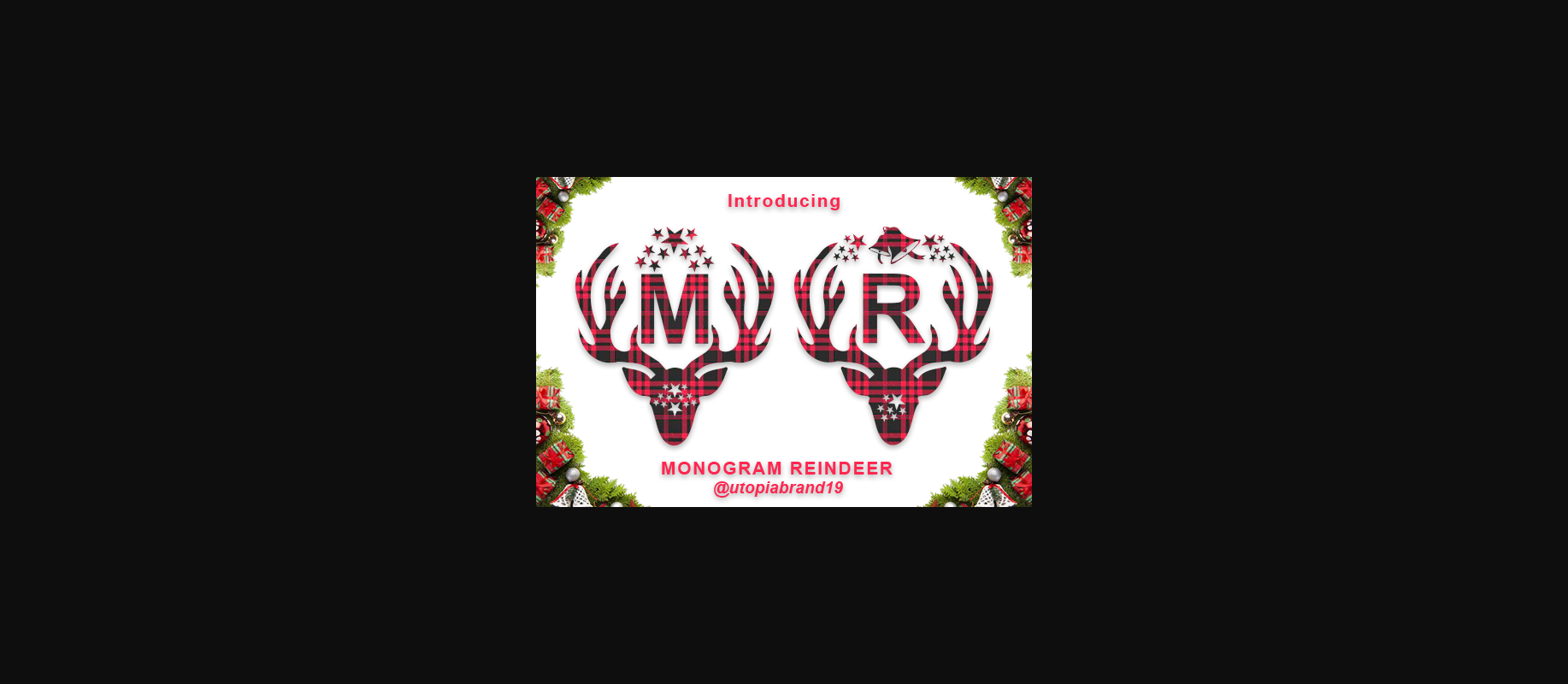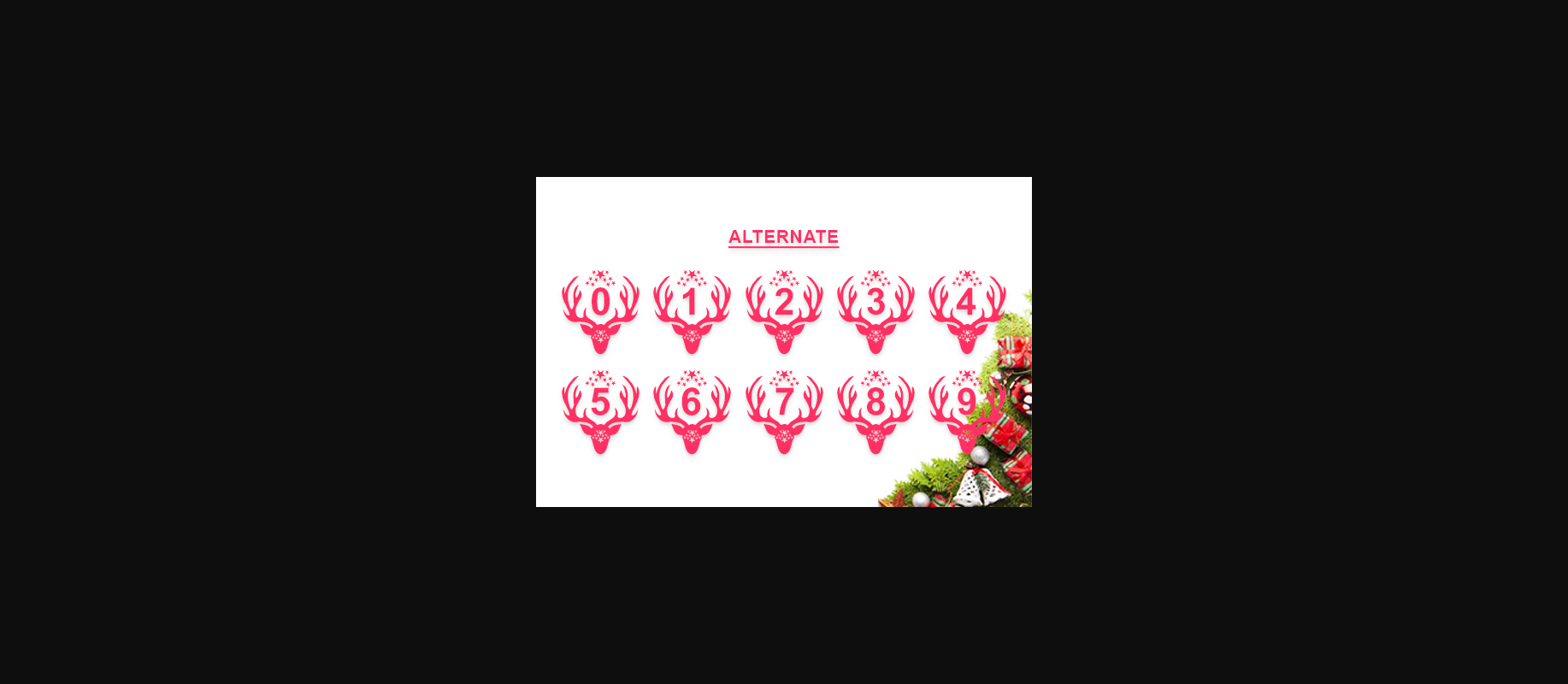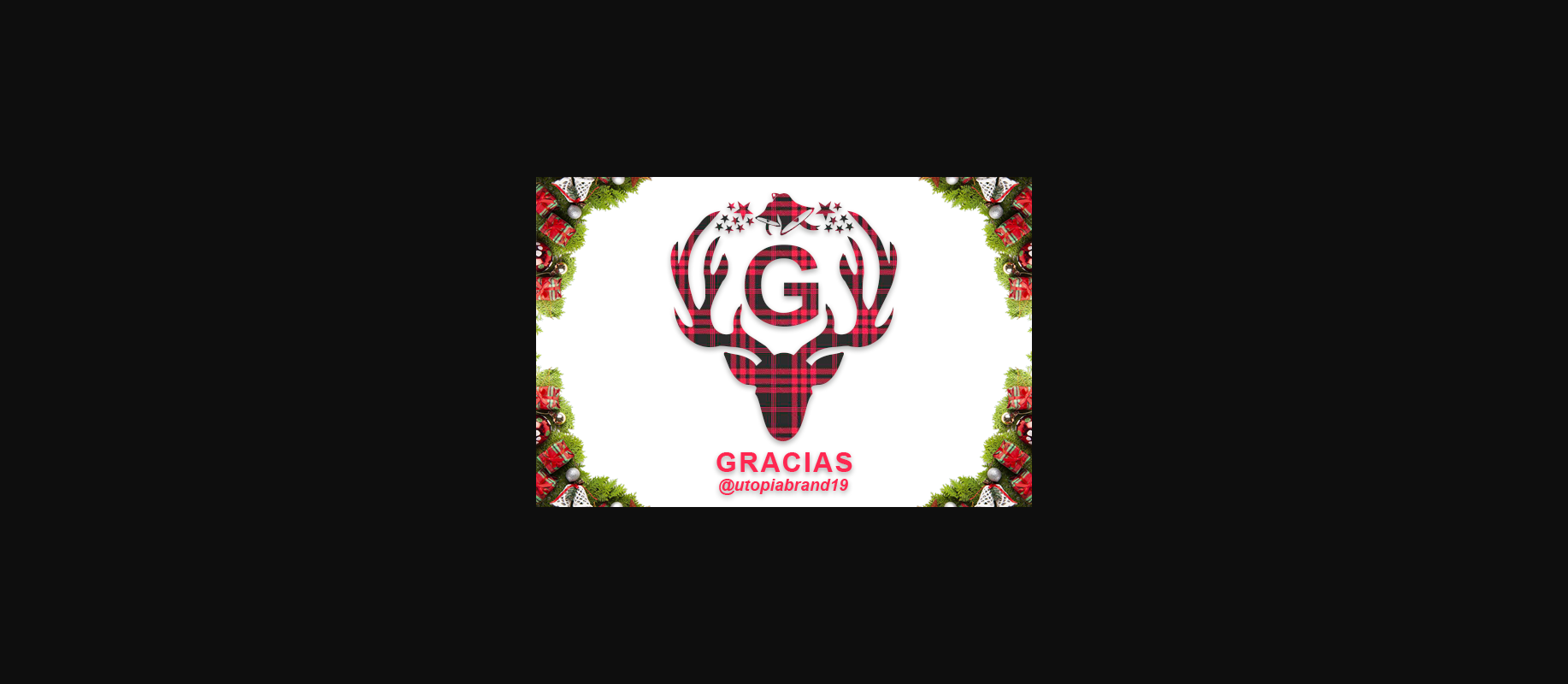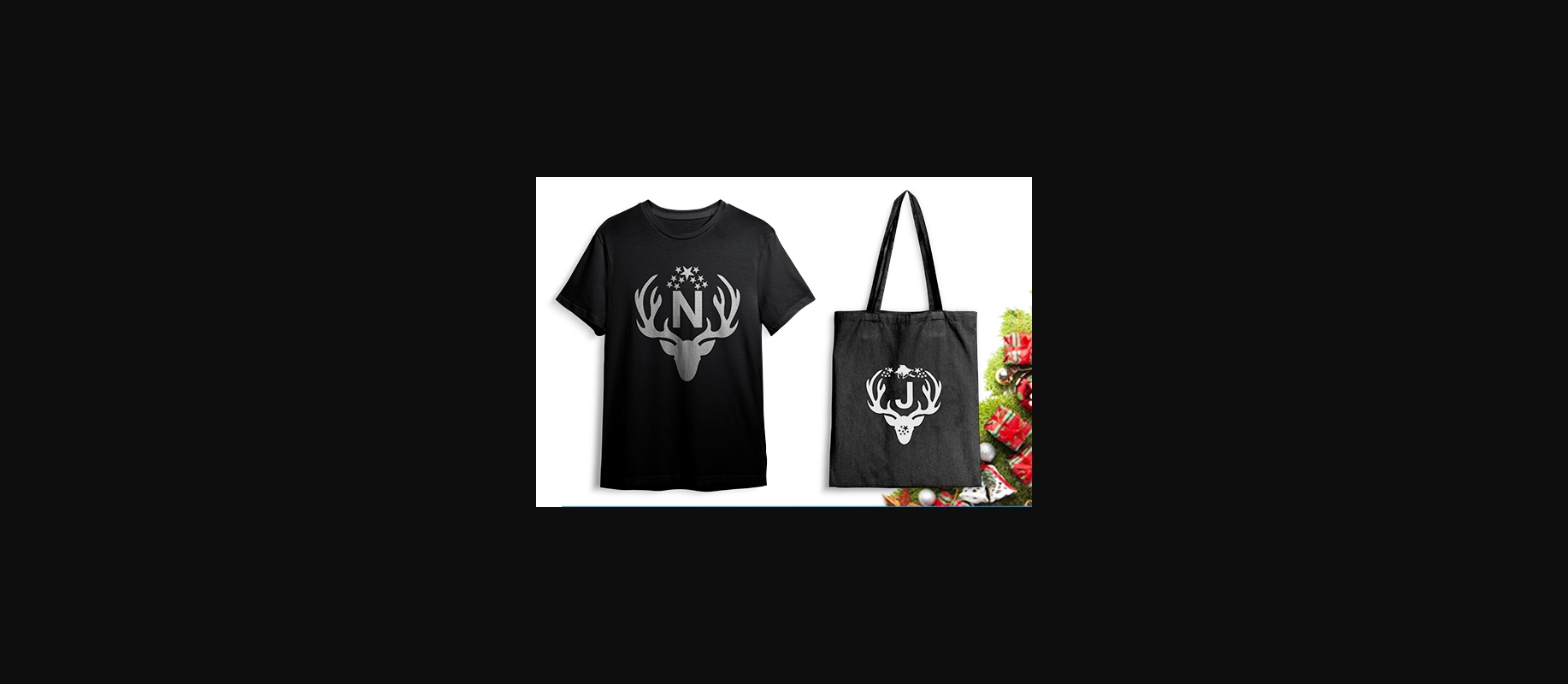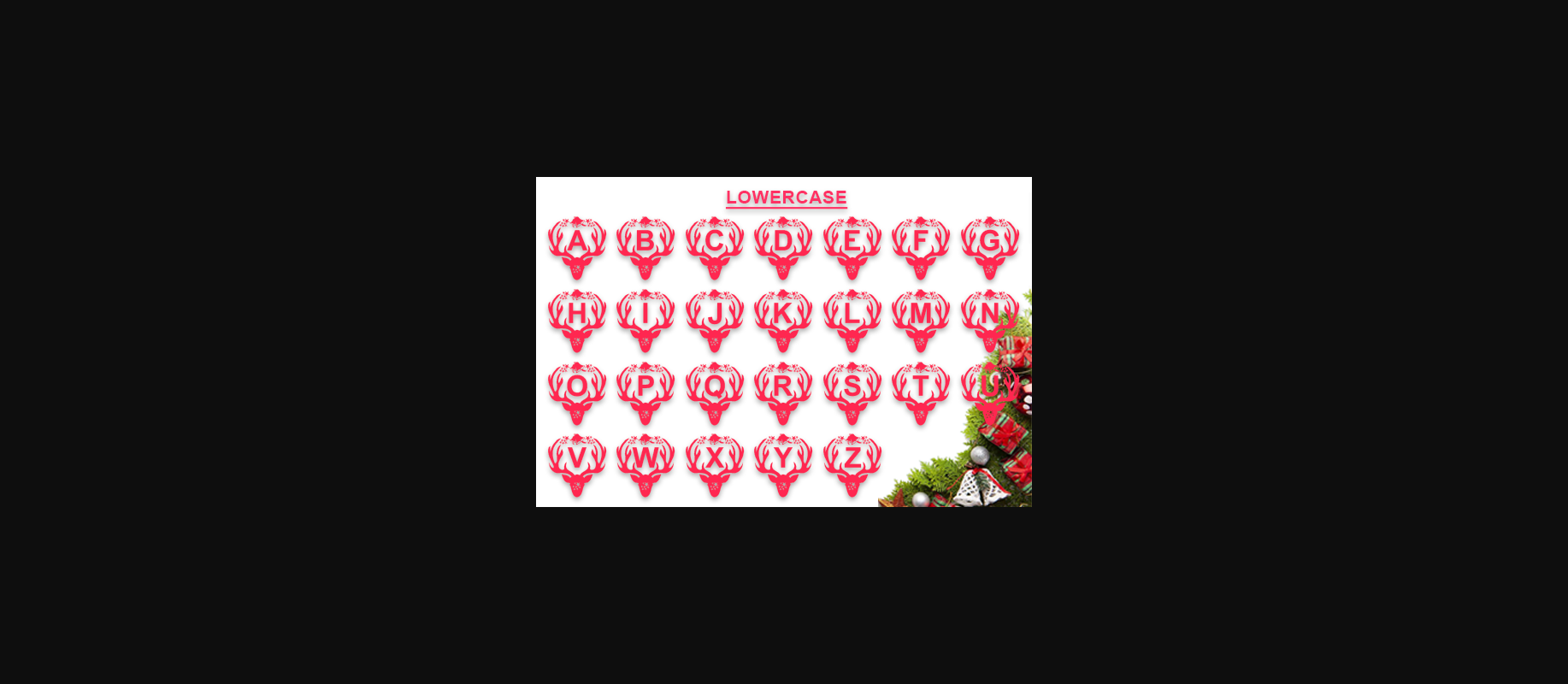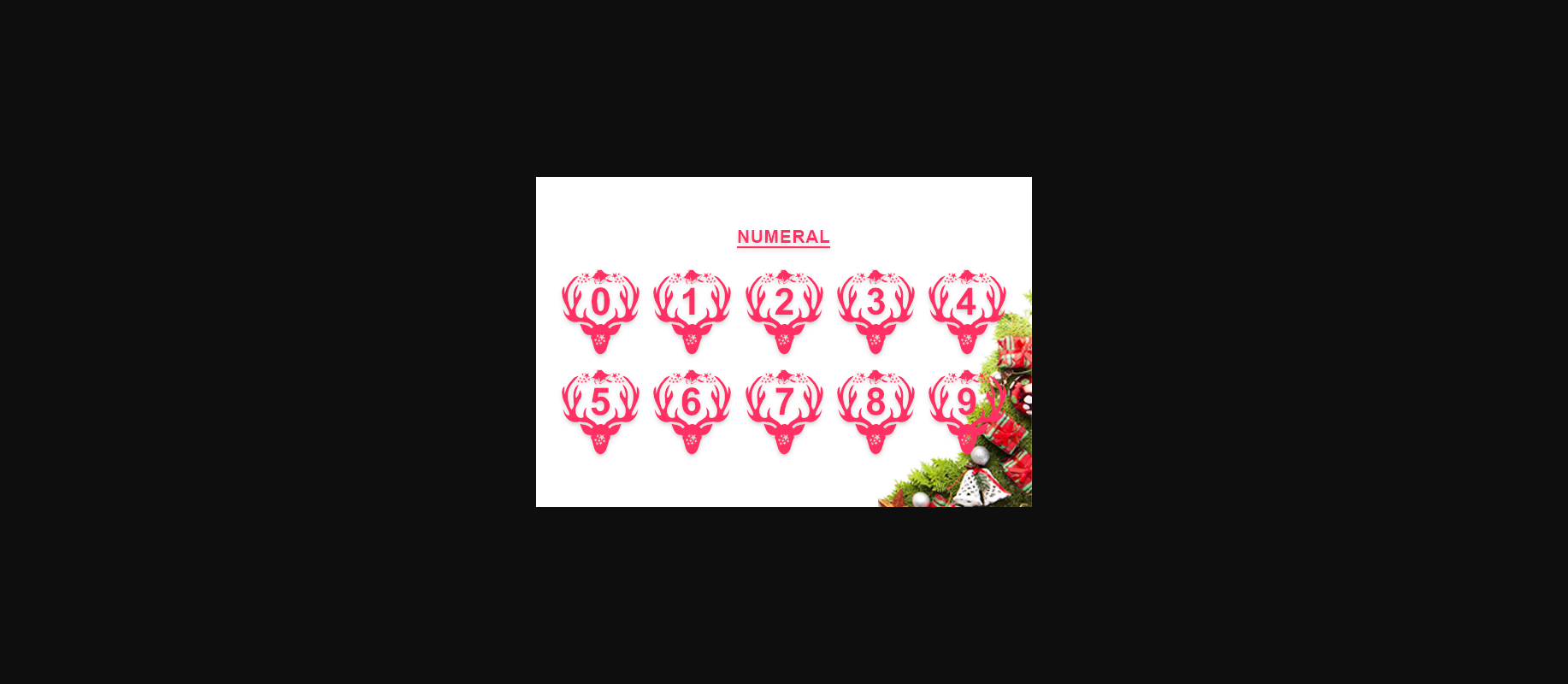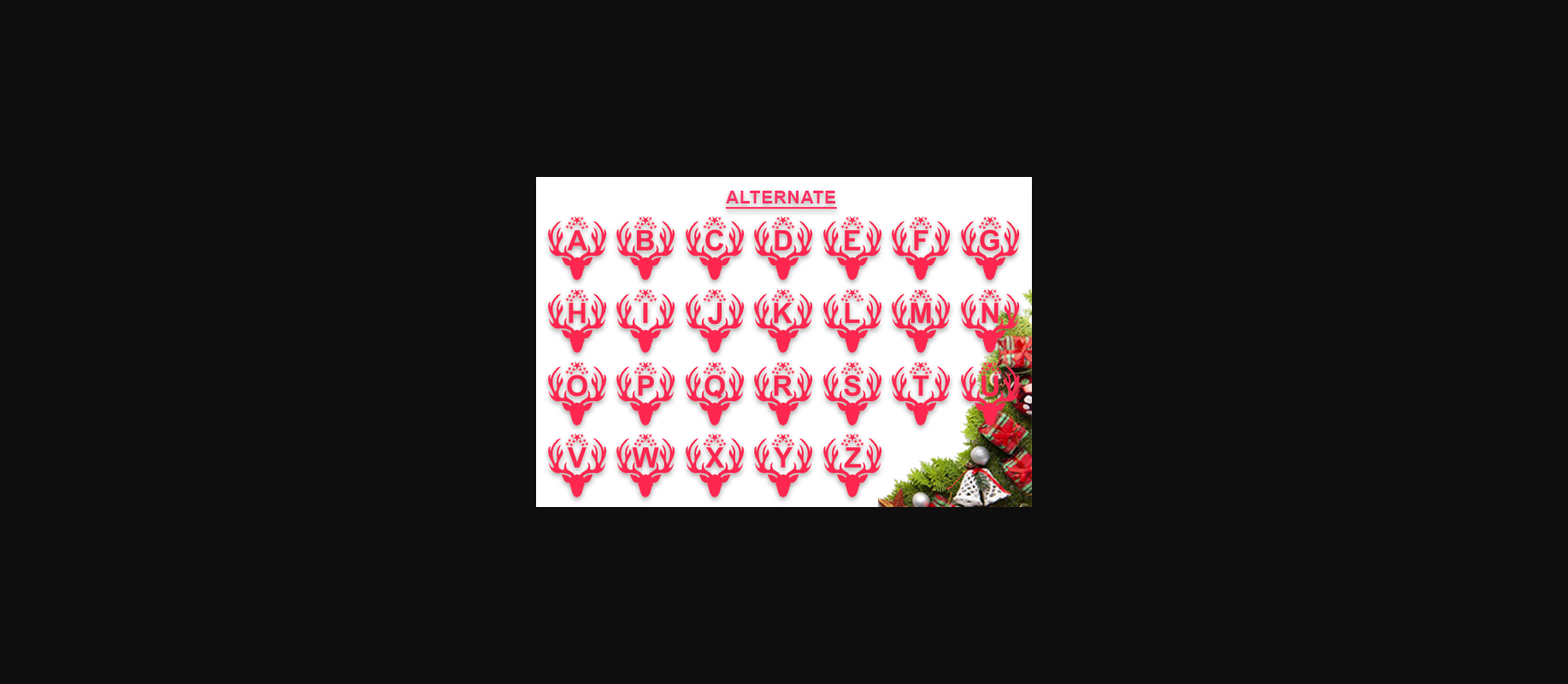
Monogram Reindeer Font
About Monogram Reindeer Font
Monogram Reindeer is a sweet Christmas inspired decorative font. Fall in love with its authentic feel and use it to create gorgeous holiday designs, beautiful stationary art, eye-catching social media posts, and cute greeting cards.